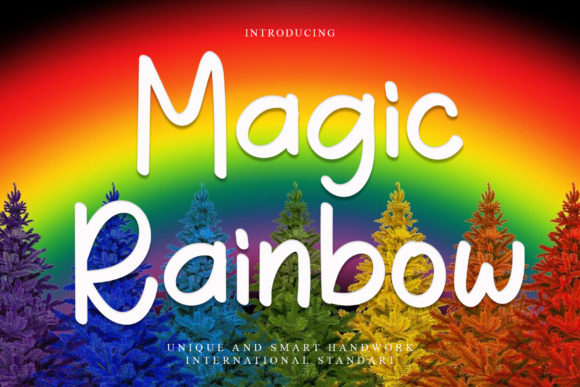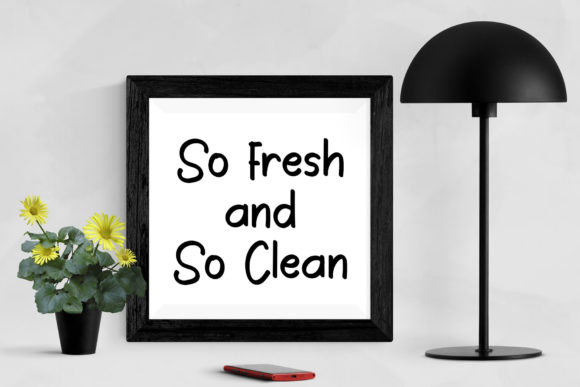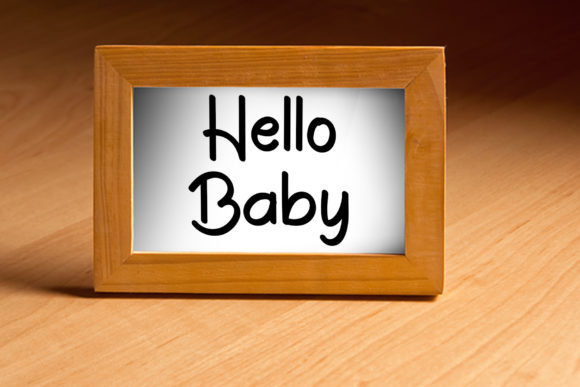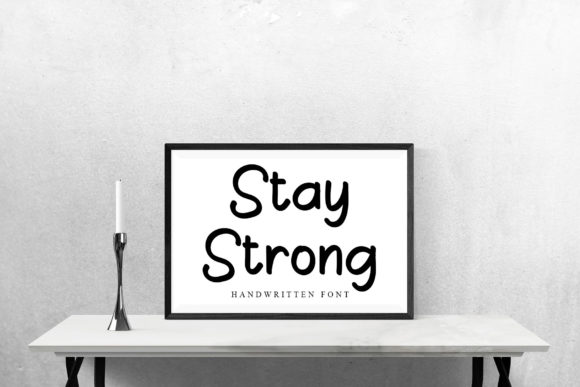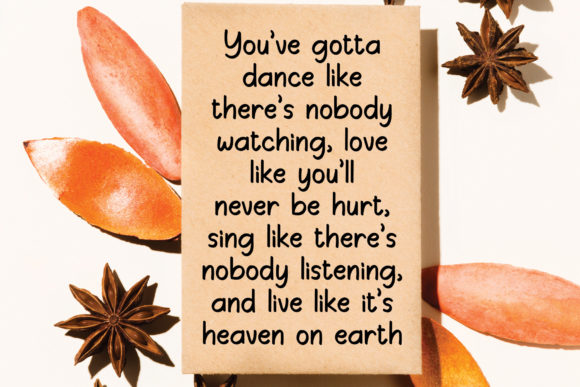
Magic Rainbow Font
About Magic Rainbow Font
Magic Rainbow is a laid-back and simple lettered handwritten font. No matter the topic, this font will be an incredible asset to your fonts’ library, as it has the potential to elevate any creation.